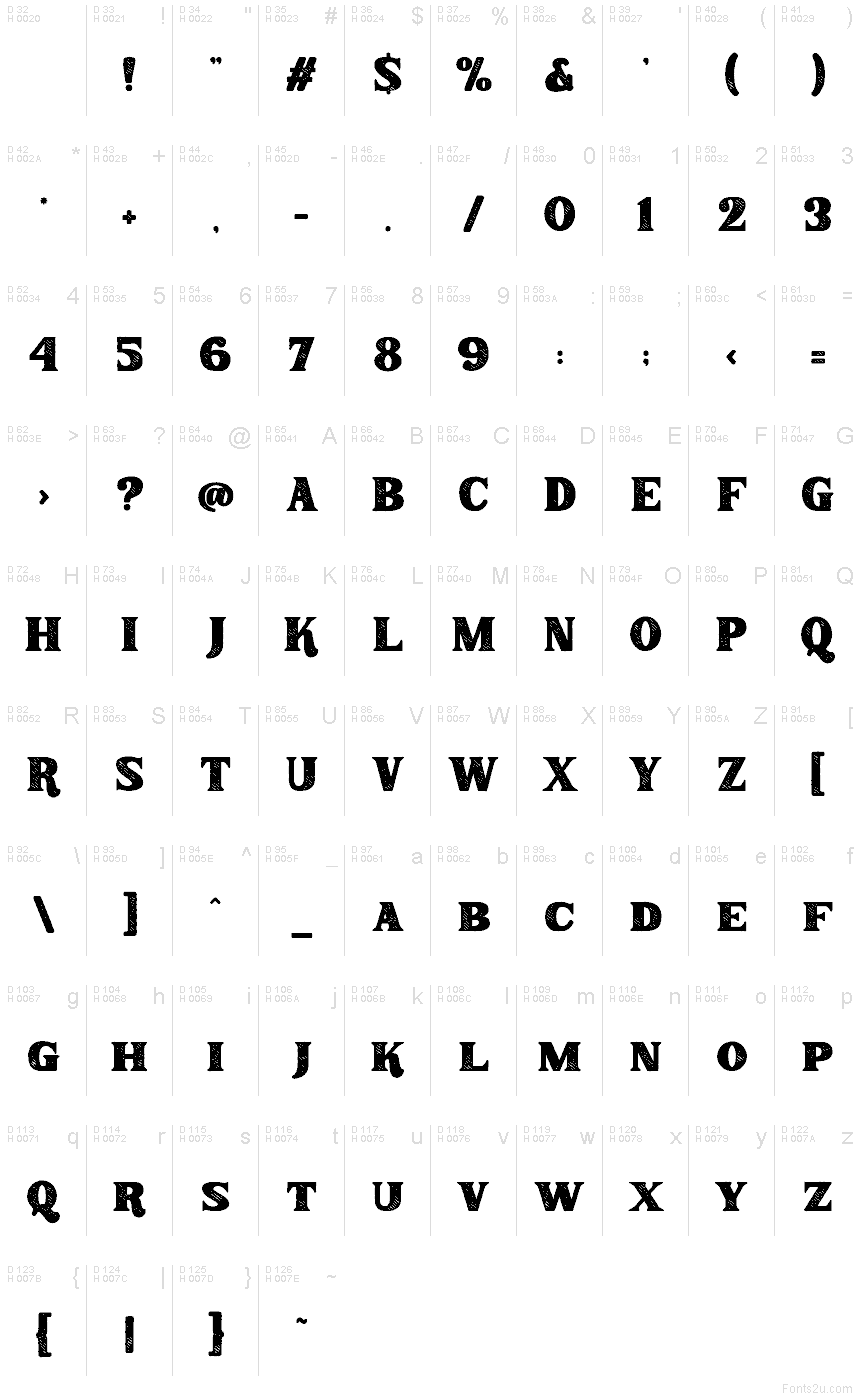
Classic Stroke Texture font by PutraCetol Studio is a free retro serif typeface. Part of the Classic Stroke family, it wears a bold, engraved texture-tight diagonal hatching that feels like ink pressed from vintage woodtype. The chunky letterforms and sturdy serifs carry a warm, timeworn grit, so headlines look tactile and lived-in rather than polished or flat.
Using Classic Stroke Texture, you get instant throwback character without fussy effects. It shines on posters, craft beer labels, coffee packaging, barber shop signage, band merch, and retro event flyers. The dense texture holds up at larger sizes, while shorter words snap with rhythm and punch. Pair this free font with a clean geometric sans for body copy to keep the message crisp and the heritage vibes front and center.